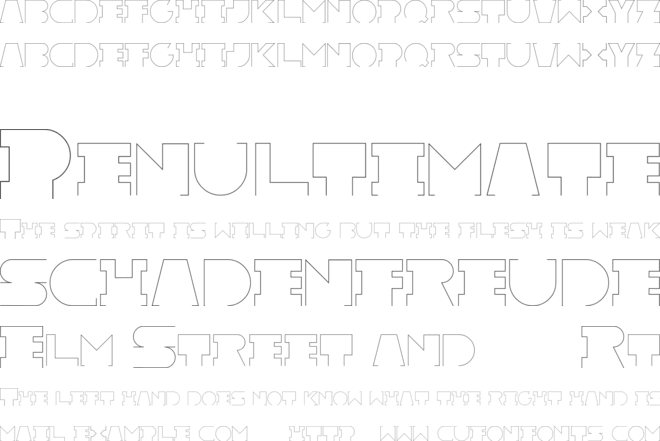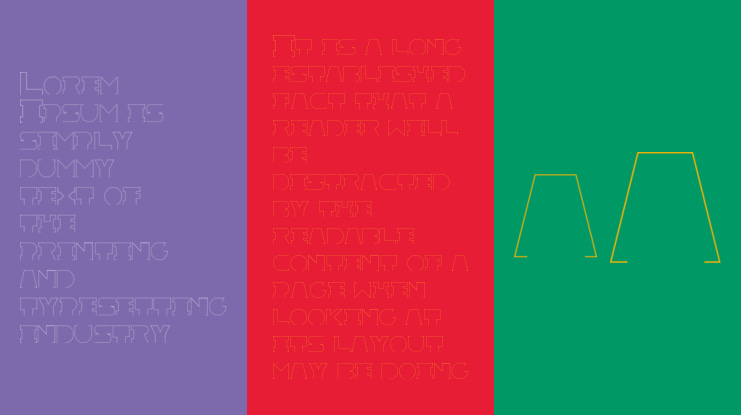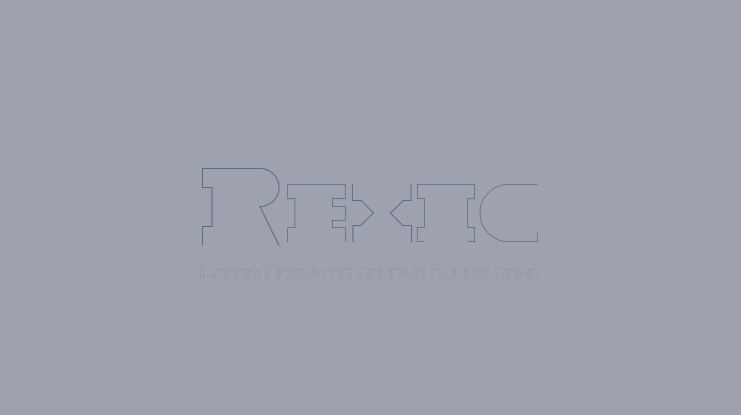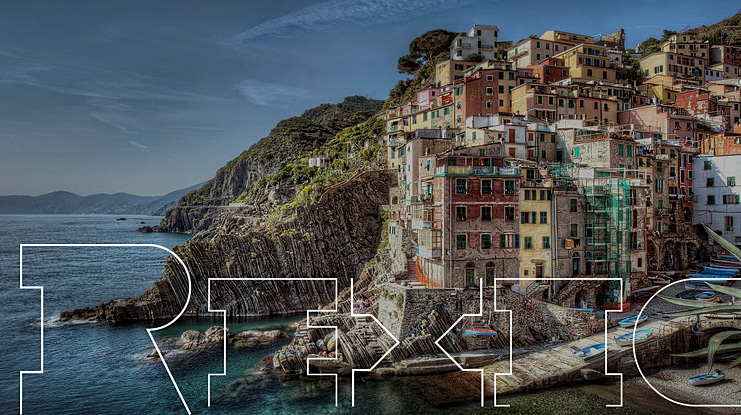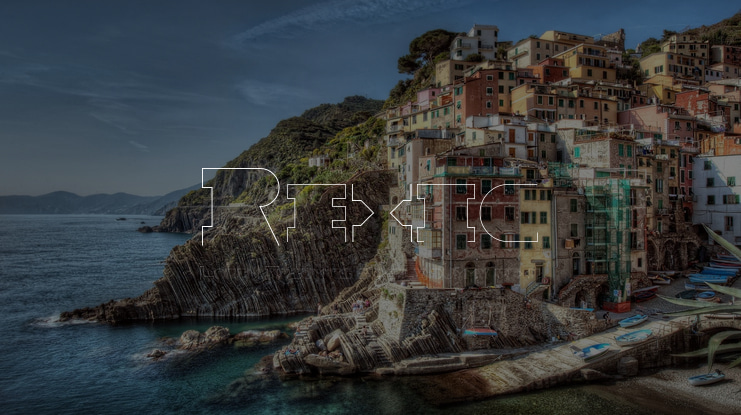
Rexic Font
This is an outline skinny minimal font based on various block type designs out there in the ether. As of now it is only a standard alphabet but if popular I will continue to update.